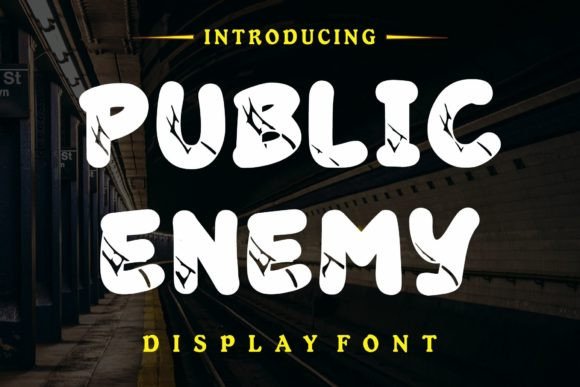
Public Enemy: A Retro-Grunge Display Font for Editorial Impact
As someone who crafts stories across blogs, digital magazines, and print-ready guides, I know how much weight a single typeface carries—not just in aesthetics, but in tone, trust, and attention. Public Enemy isn’t another decorative flourish. It’s a deliberate, character-rich display font that speaks before the first word is read. With its retro cool energy, grunge-inflected edges, and unmistakable personality, Public Enemy lands with authority—ideal for moments where you need readers to pause, recognize, and remember.
Visually, Public Enemy balances raw texture with refined structure. Its letterforms carry subtle irregularities—slight asymmetry in stroke contrast, uneven baseline alignment, and intentional roughness at terminals—that evoke 90s zine culture without sacrificing legibility at larger sizes. It’s not distressed for effect alone; every imperfection serves editorial intention. That makes it especially effective when you’re building a publication identity rooted in authenticity, rebellion, or creative independence.
Where Public Enemy Earns Its Place in Your Layouts
This font thrives where hierarchy meets voice: magazine covers, ebook titles, newsletter headers, and chapter openers. Its bold presence commands space without shouting—making it perfect for lifestyle blogs that blend personal narrative with visual confidence, or coaching workbooks where tone matters as much as content. Use Public Enemy for cover text on a wedding planning guide to suggest warmth with edge, or as the headline font for a digital magazine exploring underground music scenes—its stylistic DNA aligns naturally.
It also excels in accent typography: pull quotes rendered in Public Enemy against a clean serif body copy create compelling visual rhythm. In printable planners or lead magnets, it adds distinction to section headers—“Your Weekly Intentions,” “Reflection Prompts,” “Resources to Revisit”—without overwhelming the page. Because it’s designed as a display font, Public Enemy isn’t intended for long-form reading. Reserve it for headlines, subheads, callouts, and branding elements where impact outweighs endurance.
Readability Across Formats—What You Need to Know
Public Enemy performs consistently across screen and print—but with smart constraints. At 36pt and above, it renders cleanly in web browsers, PDF exports, and mobile newsletters (especially when embedded via @font-face or licensed font services). On smaller screens, avoid using it below 28pt for headings, and never for body text. In print, its texture holds up beautifully in high-resolution layouts, though lighter weights may require testing on uncoated paper stocks.
The font includes multiple weights and stylistic alternates—some with tighter spacing for tight headlines, others with extended swashes for cover treatments. Check whether your license includes OpenType features like discretionary ligatures or contextual alternates; they add nuance to quote graphics and branded social media assets. Multilingual support is limited to Latin-based languages (including accented characters common in English, French, Spanish, and German), so plan accordingly for global-facing publications.
Pairing Public Enemy Thoughtfully
A strong display font needs thoughtful companionship. For editorial projects, pair Public Enemy with a highly readable serif—like Merriweather, PT Serif, or Adobe Garamond—for body copy. Their structural clarity grounds Public Enemy’s expressive energy. In digital newsletters or modern ebooks, try it with a neutral sans serif—Inter, Lato, or Source Sans Pro—for captions, navigation labels, and metadata. Avoid pairing it with other grunge or script fonts; contrast, not competition, creates harmony.
In branding, use Public Enemy sparingly but consistently: as your masthead, section dividers, or signature quote treatment. Repetition builds recognition—readers begin to associate that distinct texture with your voice. Overuse dilutes its power; one well-placed instance per article or spread often resonates more than three scattered ones.
Real-World Uses That Work Well
- Lifestyle blog headers: Swap generic sans-serif banners for Public Enemy in featured post graphics—especially for opinion pieces or cultural commentary.
- Recipe ebook covers: Let it introduce a collection of “Unapologetic Weeknight Dinners” or “Fermented & Forgotten”—its grit mirrors the honesty of home cooking.
- Coaching workbooks: Apply it to reflective prompts (“What’s one boundary you’ve avoided naming?”) to signal emotional weight and invitation.
- Digital magazine sections: Use alternate glyphs for recurring column titles—“Field Notes,” “First Draft,” “Deep Listen”—to unify tone across issues.
- Printable guides: Pair with light gray borders and ample whitespace to let Public Enemy breathe on worksheets or habit trackers.
Public Enemy doesn’t just sit on your font menu. It steps into your editorial decisions—shaping how readers enter your content, how they feel while reading, and how they recall your brand after closing the tab or turning the page. It’s a tool for intentionality: less about decoration, more about resonance. Whether you're launching your first digital zine or refining a decade-old newsletter, this display font offers something rare—a voice that’s both unmistakable and deeply usable.